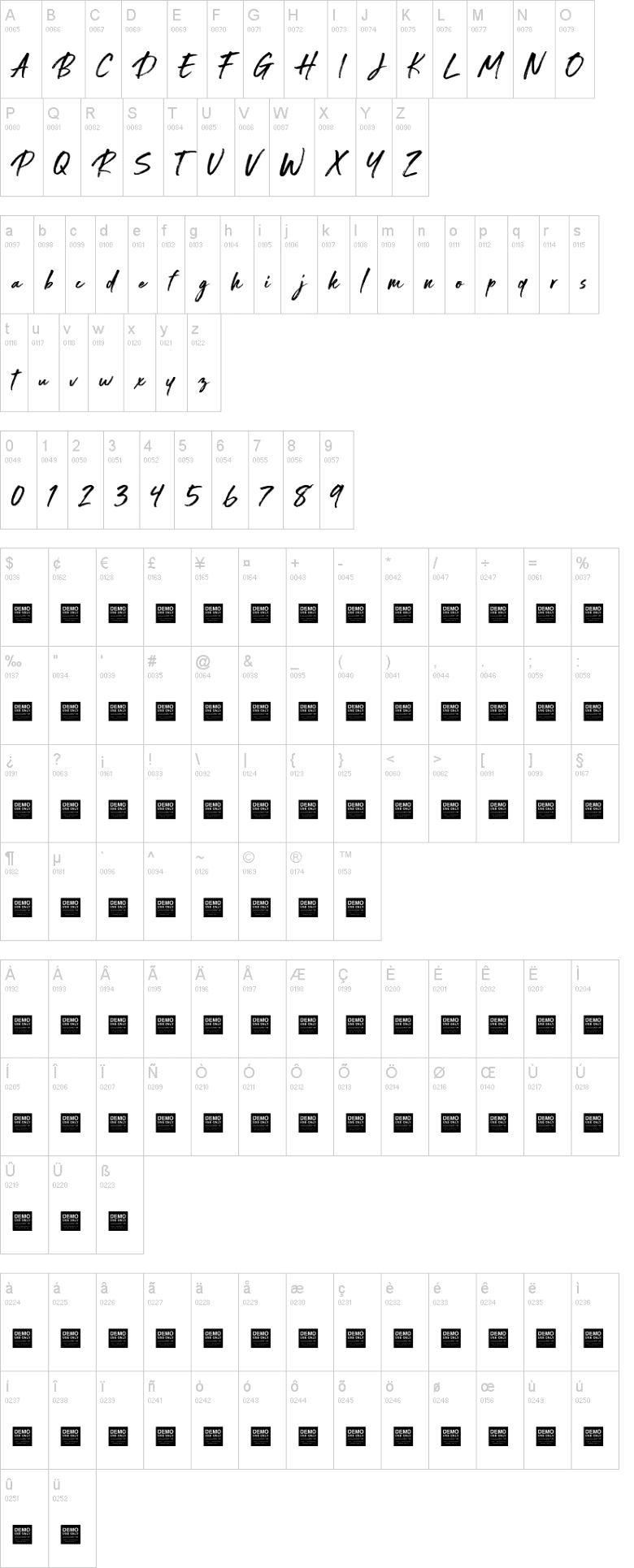
Special Request is one of the best brush fonts out there that we can use for a variety of projects, created by BLKBK Fonts for commercial and personal use. To be added, the free version of this app has all the small letters and the special symbols included.